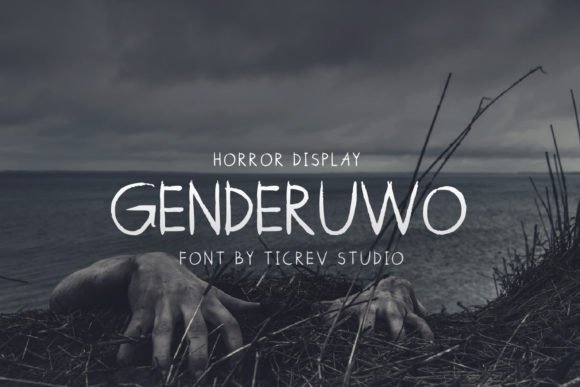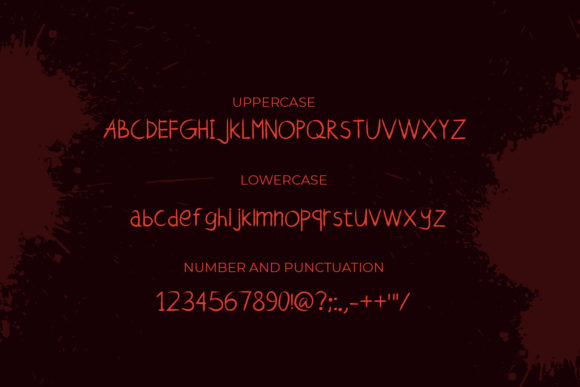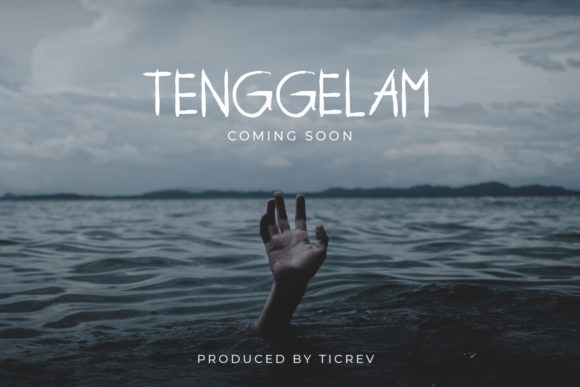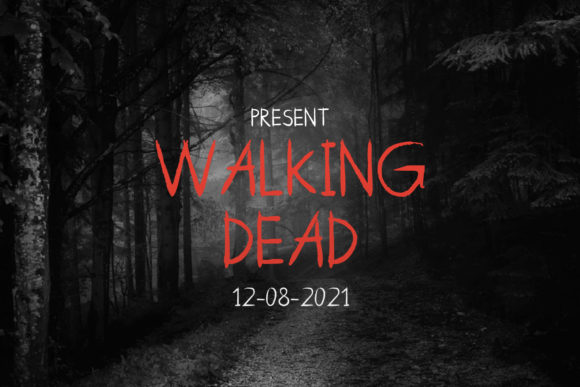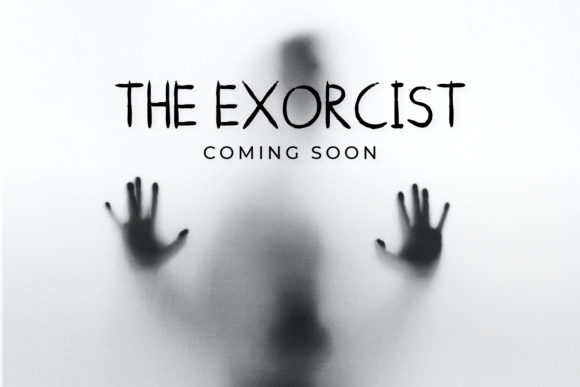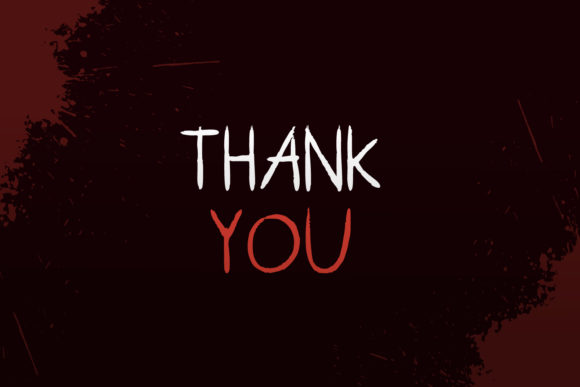
Unlock Your Creativity with the Unique Genderuwo Font
Have you ever been working on a project, pouring your heart and soul into it, and then suddenly, the perfect font appears, bringing everything together? For designers, this moment is pure magic. It’s the moment when all the elements come together, and your idea shines in all its glory.
This is exactly what the Genderuwo Font is designed to do – to take your creative ideas to the next level. A masterfully crafted display font, Genderuwo is the perfect addition to any project. Its unique design makes it stand out, adding a touch of elegance and sophistication to any text. Whether you’re designing a logo, a poster, or a website, the Genderuwo Font is sure to make your design pop.
- Unique Characteristics: Genderuwo Font features a unique blend of Japanese and Western design elements, resulting in a distinctive and eye-catching aesthetic.
Designer Review: Genderuwo Font
Overall, I have mixed feelings about the Genderuwo Font. While it has some unique features, it also has some limitations that make it less desirable for widespread use.
- The font has a distinct, hand-drawn feel that can be appealing in certain contexts.
- It has a wide range of languages supported, making it a good option for multilingual projects.
- The font is relatively lightweight, which can make it easier to load on slower connections.
- The font can be difficult to read at smaller sizes, which may limit its use in smaller text or body copy.
- The hand-drawn feel of the font can also make it look inconsistent or amateurish in certain contexts.
- The font’s unique features may not be suitable for all types of projects or audiences.
Overall, I would say that the Genderuwo Font is a solid option for specific projects or contexts where its unique features can be leveraged effectively. However, it may not be the best choice for more general or wide-reaching projects.
Tips for Getting the Most Out of the Genderuwo Font
The Genderuwo font is ideal for creating unique and eye-catching designs. To get the most out of it, consider the following tips:
- Use it sparingly to create a bold statement.
- Pair it with other fonts to create a visually appealing contrast.
- Experiment with different font sizes and styles to achieve the desired effect.
The Genderuwo font is suitable for a variety of use cases, including:
- Graphic design and branding.
- Typography and word art.